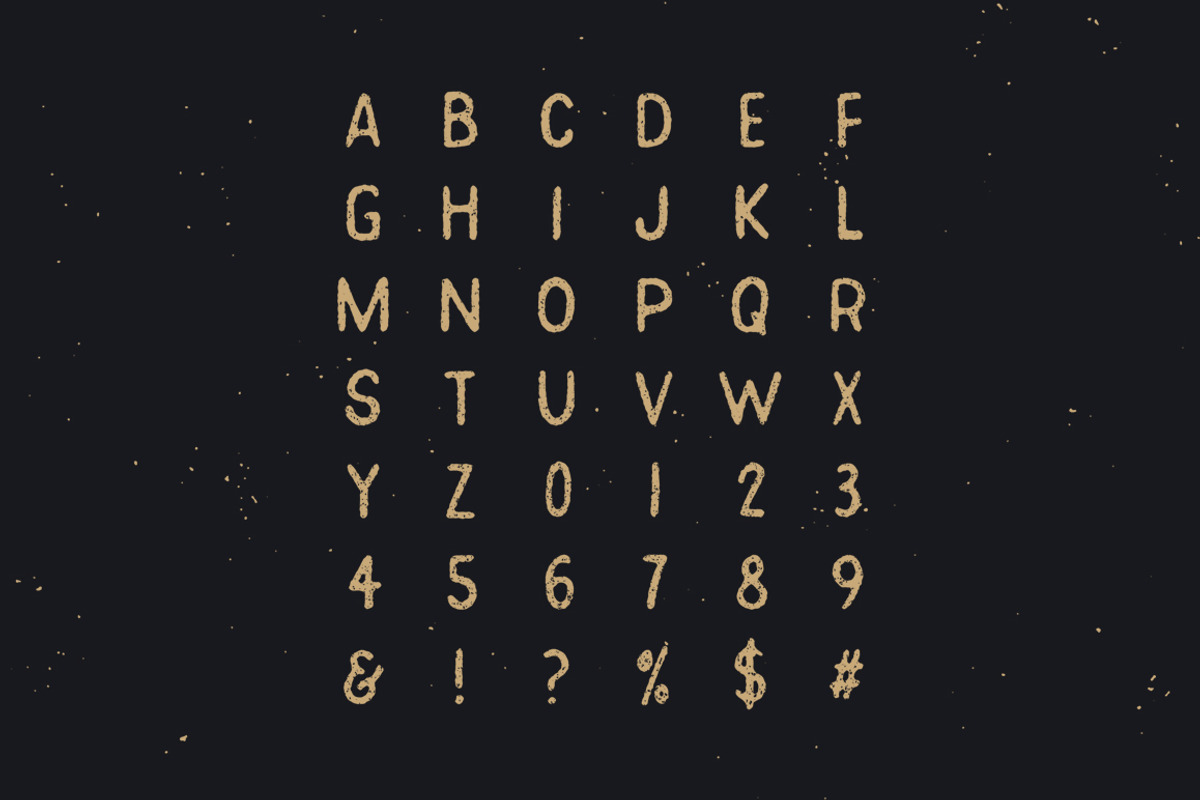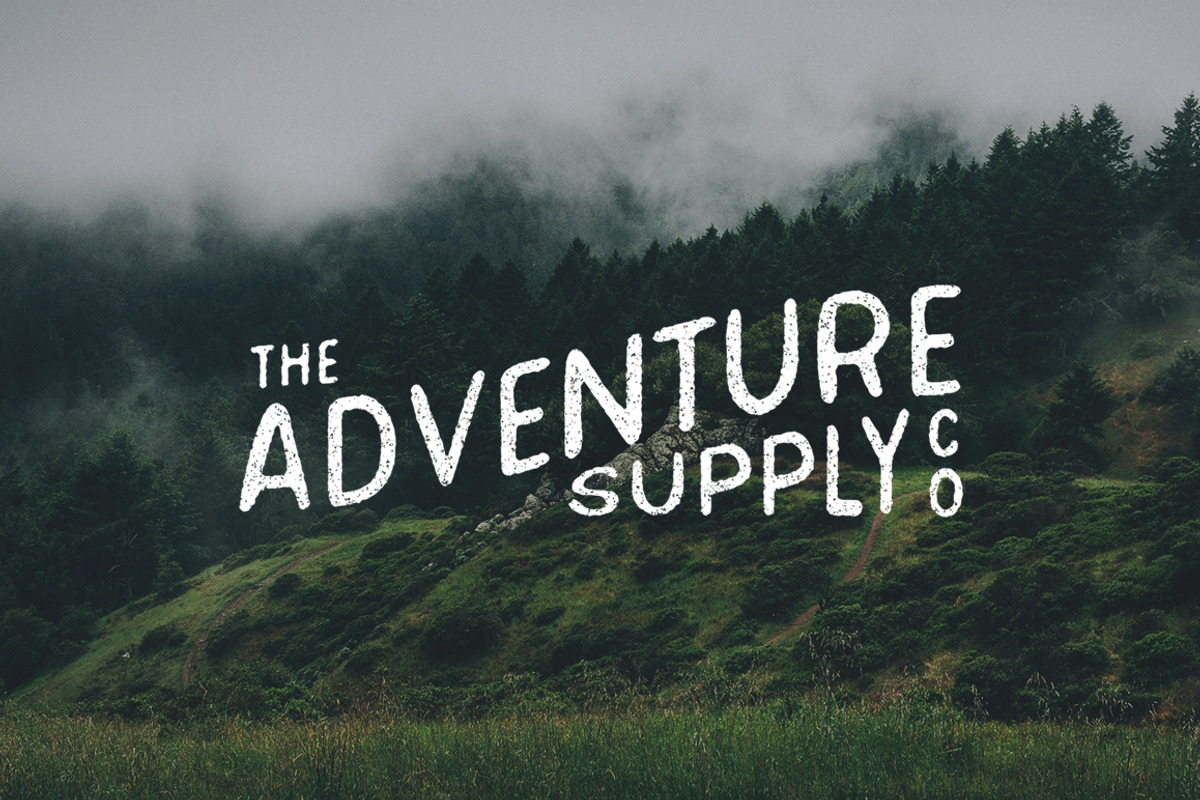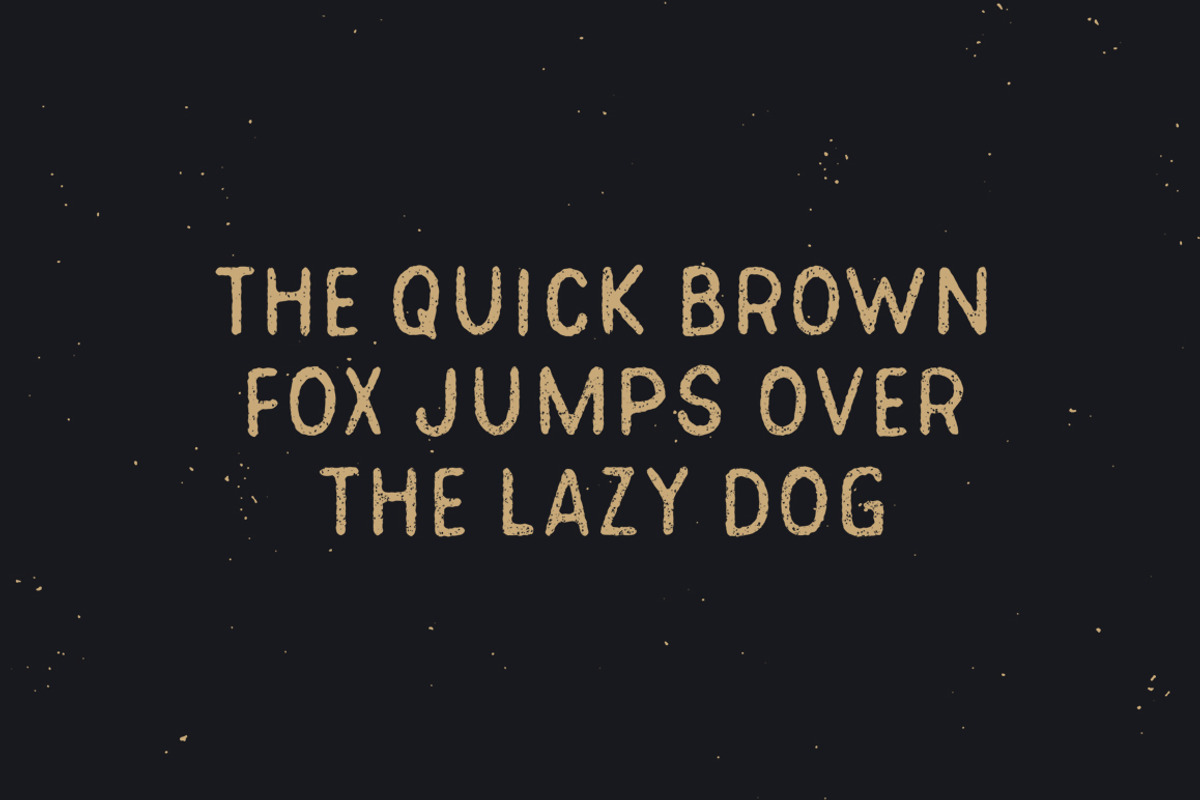
Pearl District - Hand Drawn Font
Pearl District - Hand Drawn Font by James Lafuente is a font selected for branding, posters, packaging, typography.
Why Pearl District - Hand Drawn Font is worth a look
Pearl District - Hand Drawn Font by James Lafuente fits naturally into Branding, posters, packaging, typography.